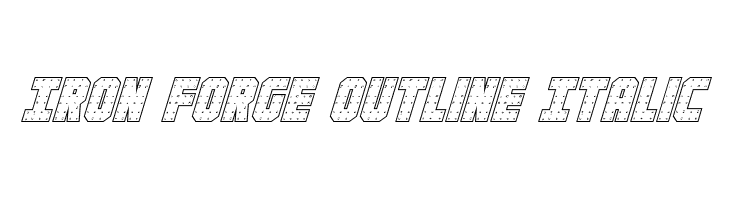
A bold, italicized outline font with a rugged, industrial texture.
A bold, industrial outline font with a riveted, mechanical appearance.
A bold, italic, industrial-style font with a riveted metal plate design.
A bold, industrial font with a metallic, riveted design.
A bold, industrial-style font with geometric shapes and textured cut-outs.
A bold, angular font with a metallic outline and futuristic design.
A bold, three-dimensional font with an industrial, vintage aesthetic.
A bold, angular font with a futuristic and industrial design.